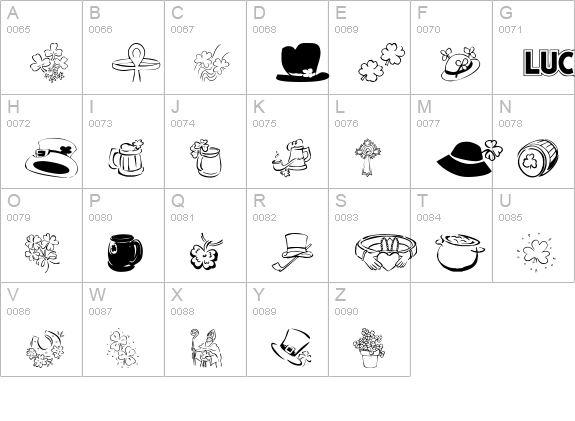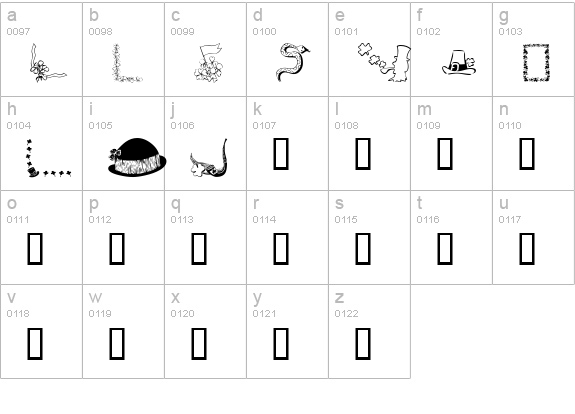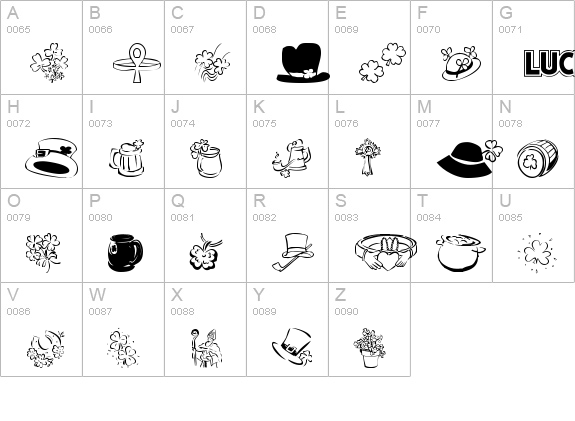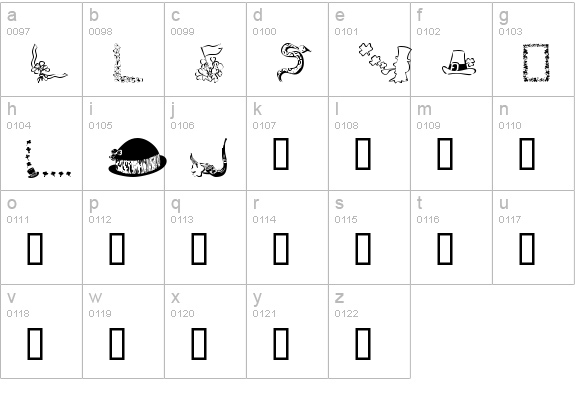
KR Bits O'Shea is a captivating and whimsical font that is sure to add a touch of playfulness to any design project. With its unique and quirky letterforms, this font exudes a sense of fun and creativity. Designed by the talented typographer, KR Bits O'Shea is a font that stands out from the crowd. Its hand-drawn style and irregular shapes give it a distinct and charming character, making it perfect for a wide range of applications such as logo design, branding, packaging, and more. One of the best things about KR Bits O'Shea is that it is free to download. Yes, you read that right – this incredible font is available for everyone to use at absolutely no cost. Whether you are a professional designer or a hobbyist, you can easily access this font and bring your creative visions to life. FontsMarket.com is proud to offer KR Bits O'Shea as a freely available font. With just a few clicks, you can have this delightful typeface in your collection and start using it right away. Its versatility and eye-catching design make it a valuable addition to any font library. So why wait? Download KR Bits O'Shea today from FontsMarket.com and let your imagination run wild. With this fantastic font at your fingertips, you can create stunning designs that are sure to leave a lasting impression.